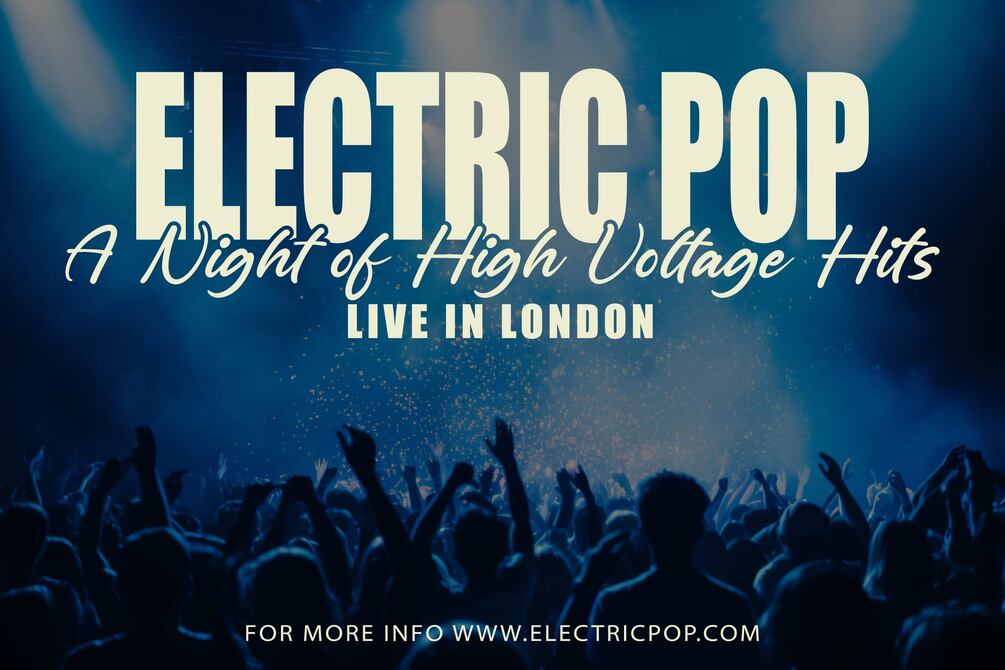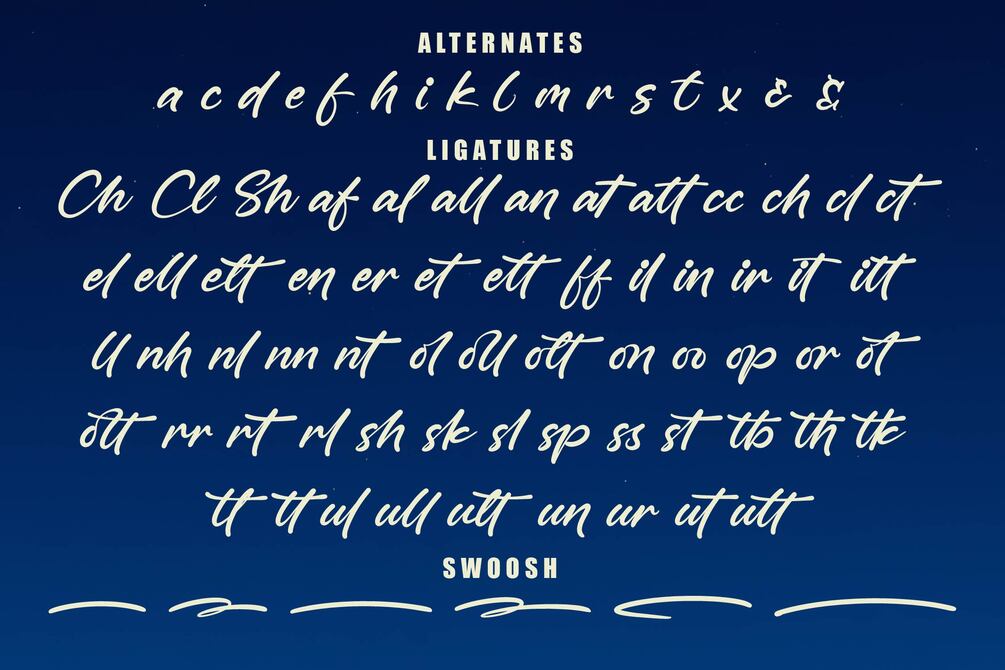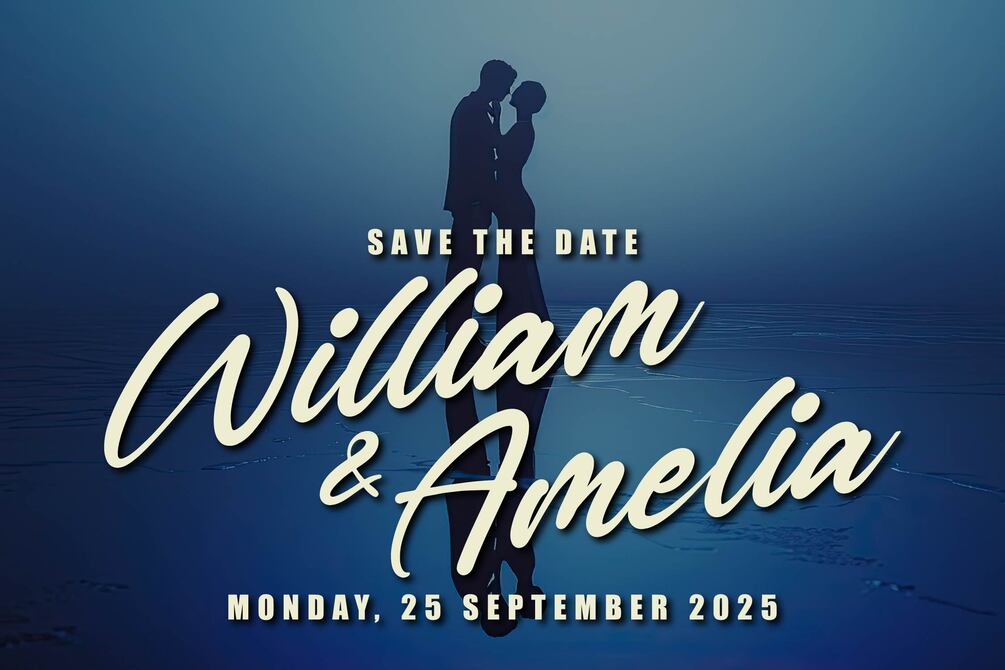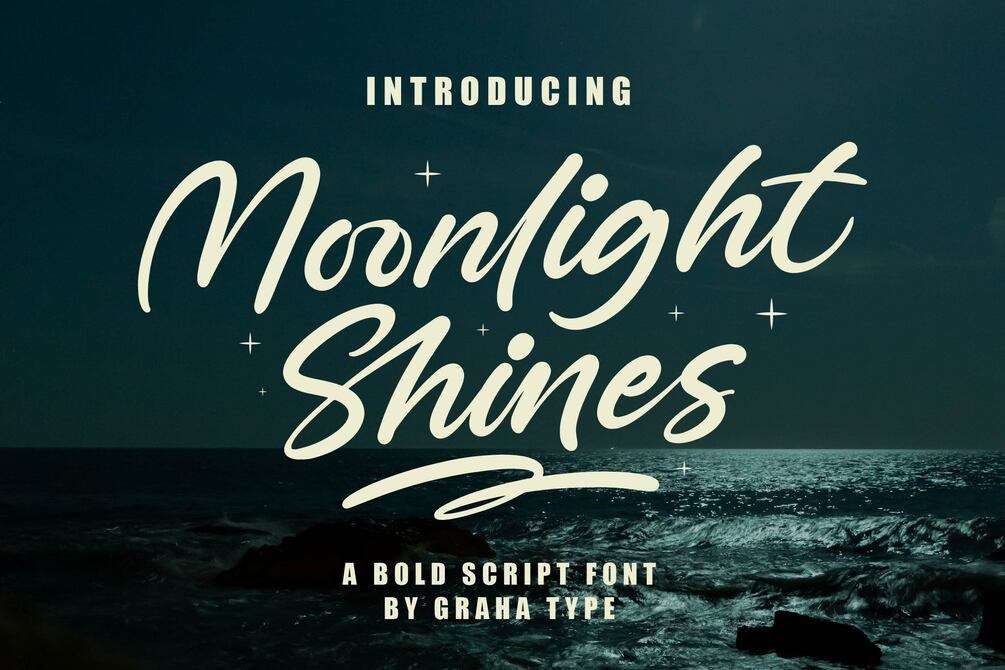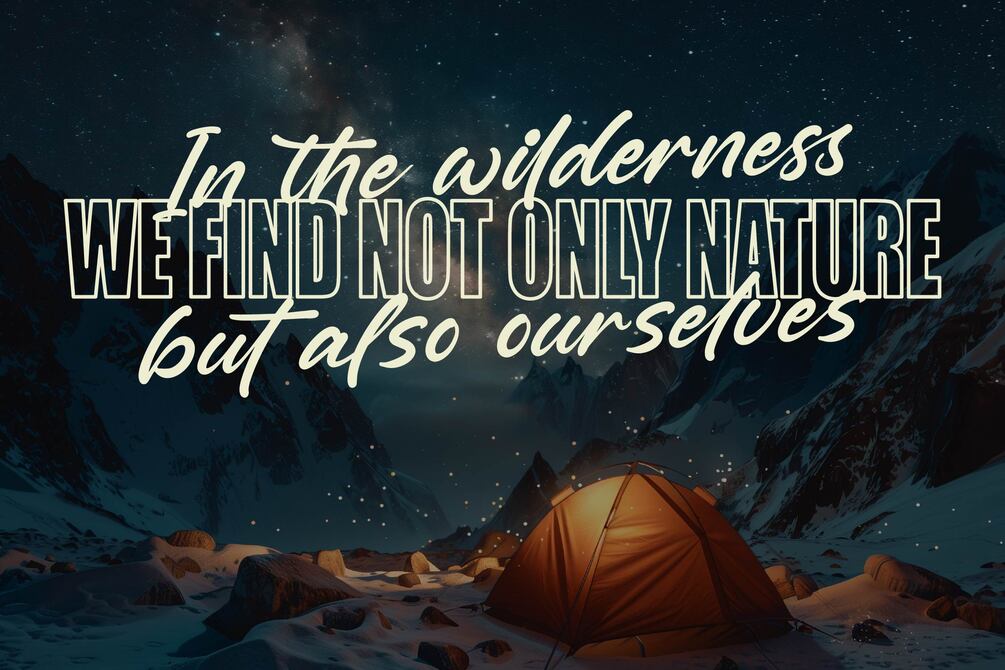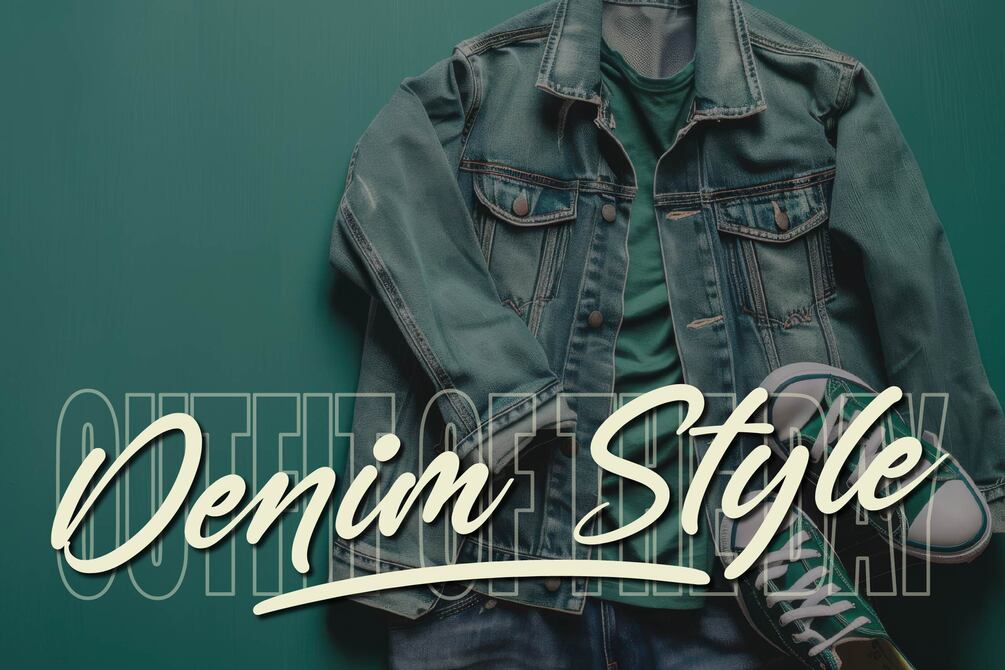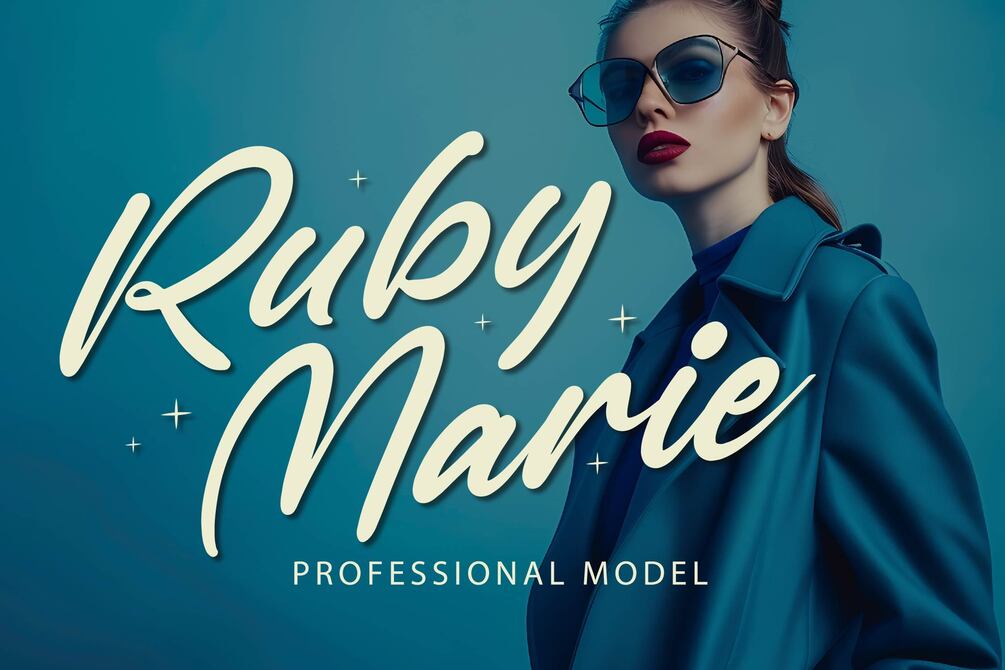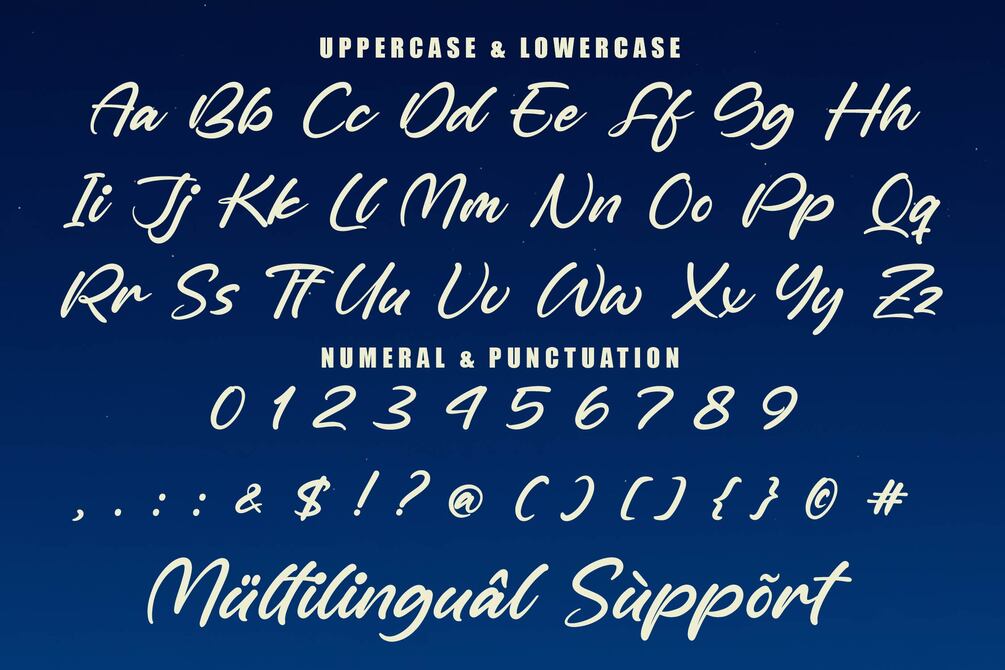
Moonlight Shines - Bold Script Font
Moonlight Shines is a bold script font with a modern and energetic feel. Its strong, flowing letters make it perfect for logos, branding, posters, and other design projects. The font’s confident style grabs attention while keeping things clear and easy to read. Whether you're designing for a creative brand or a bold business, Moonlight Shines adds personality and character to any project. Its sleek and stylish appearance ensures that your design stands out and leaves a lasting impression, making it a great choice for those who want their brand to be memorable.